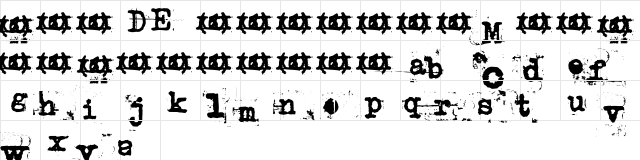
uncletypewriter Regular
Design Context for uncletypewriter Typeface
uncletypewriter uses fixed-width spacing throughout, giving it the structured, systematic character associated with coding environments and technical documentation.
Well-suited to data-driven dashboards, coding tutorials, and any design that wants to reference the world of programming.
Pro Tip: Use uncletypewriter with slightly increased line-height for extended reading — fixed-width spacing can feel dense in longer passages without extra breathing room.